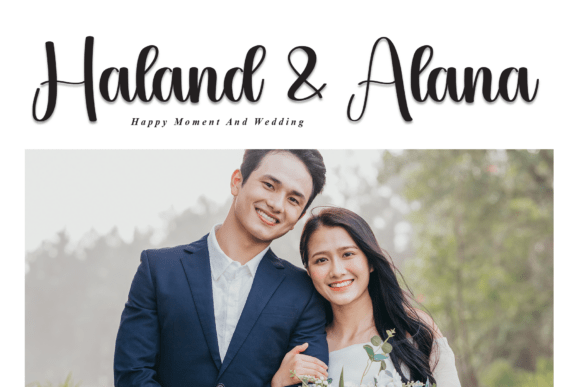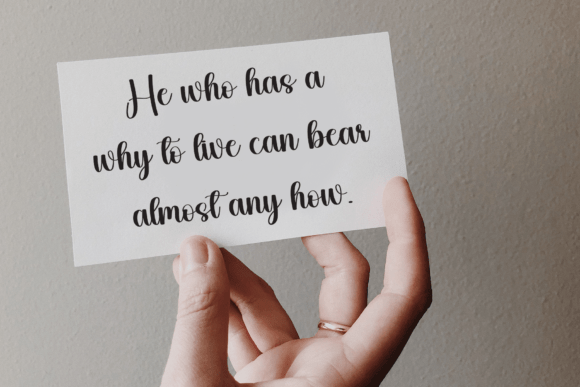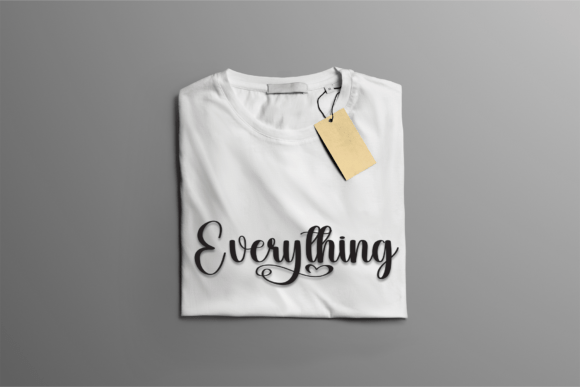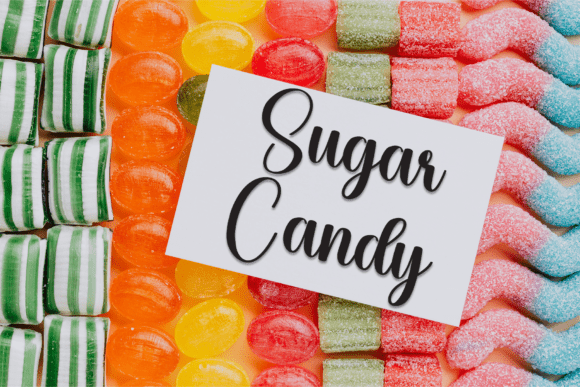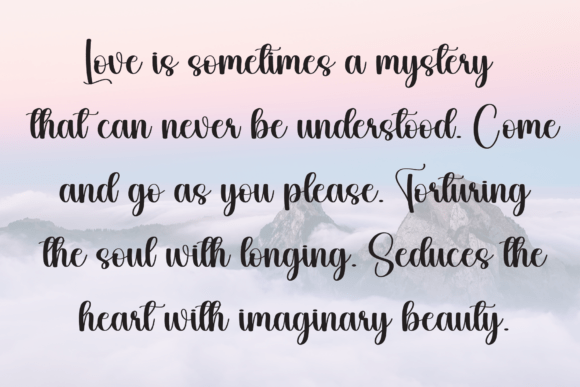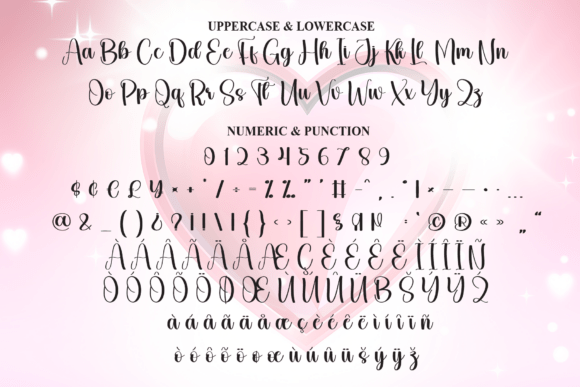
Introducing Bright Heart Font: The Sweetest Addition to Your Design Arsenal
I’ll never forget the time I was working on a wedding invitation project, and my client asked for a font that was “sweet, playful, and fun.” I scoured the internet, tried out a dozen fonts, but none seemed to capture the essence of joy and whimsy that I was looking for. That was until I stumbled upon Bright Heart Font. This charmingly delightful handwritten display font has been a game-changer for my designs, and I’m excited to share its magic with you! ✨
I’ve had the pleasure of working with Bright Heart Font on several projects, and here’s what I think:
- ✅ Sweet and Playful Personality: Bright Heart Font exudes a sense of friendliness and approachability, making it perfect for designs that require a personal touch.
- ✅ Effortless Elegance: Despite its playful nature, this font has an elegant quality that elevates it from casual to sophisticated.
- ✅ Versatility: Bright Heart Font works beautifully on a range of design materials, from wedding invitations to greeting cards, and even social media graphics.
Now, I’m not going to sugarcoat it – there are a few quirks to be aware of:
- ⚠️ Limited Use in Body Text: While Bright Heart Font is stunning as a display font, it may not be the best choice for lengthy body text. Its playful nature can be distracting for readers.
- 🤔 Kerning Issues on Certain Platforms: I’ve noticed that kerning can be a bit off on some platforms, particularly in Microsoft Word. But don’t worry, this can be easily adjusted with a little manual tweaking.
The Story Behind Bright Heart Font
Bright Heart Font was designed by a talented typographer who wanted to create a font that would bring joy and whimsy to designs. Inspired by childhood memories of handwritten letters and playful stationery, this font embodies the spirit of fun and friendliness. Whether you’re a designer, crafter, or creative hobbyist, Bright Heart Font is sure to become a favorite in your collection.
| What type of designs is Bright Heart Font best suited for? | Bright Heart Font is perfect for designs that require a playful, yet elegant touch, such as wedding invitations, greeting cards, social media graphics, and more. |
| Is Bright Heart Font suitable for body text? | While Bright Heart Font is stunning as a display font, it may not be the best choice for lengthy body text due to its playful nature. |